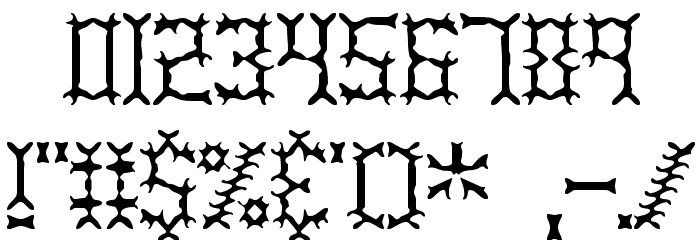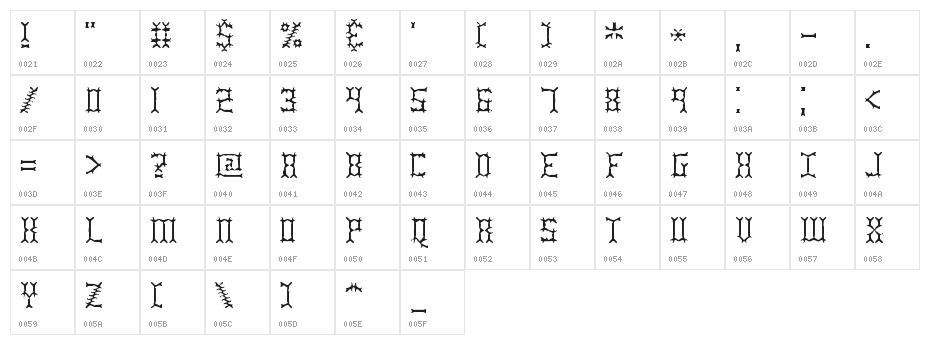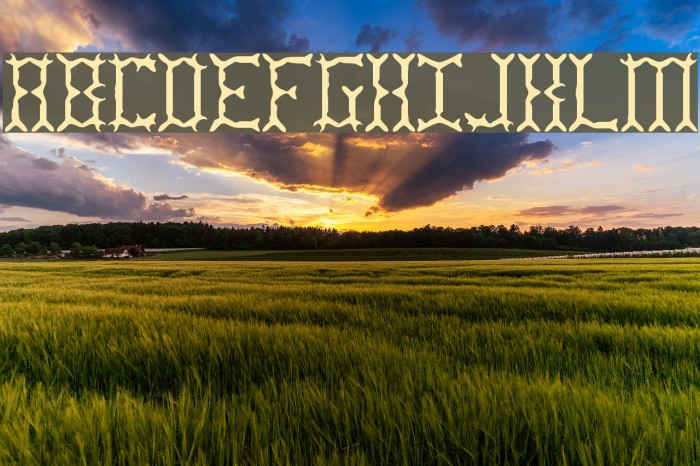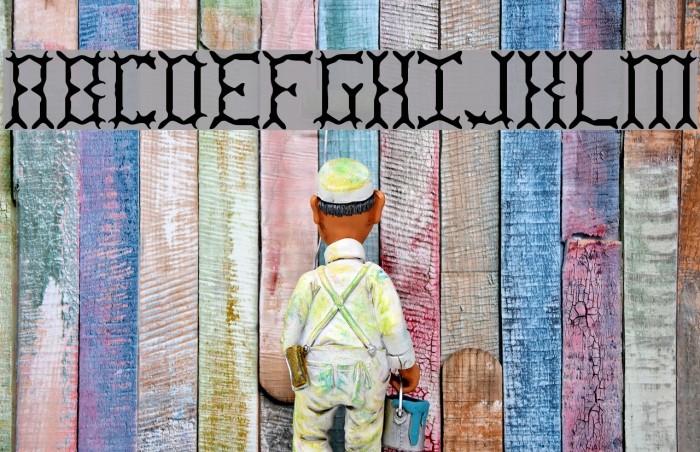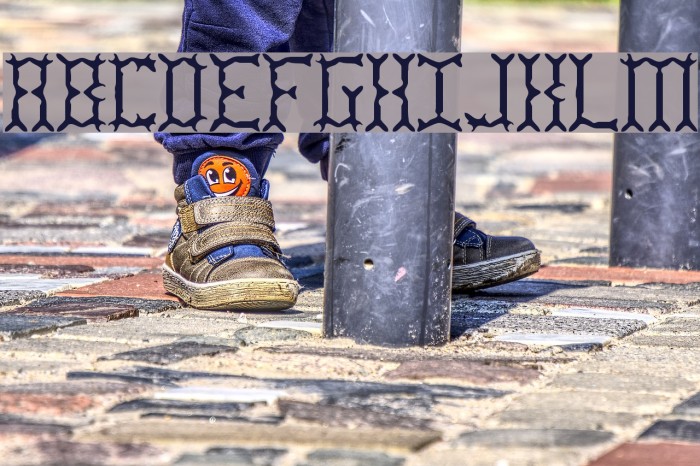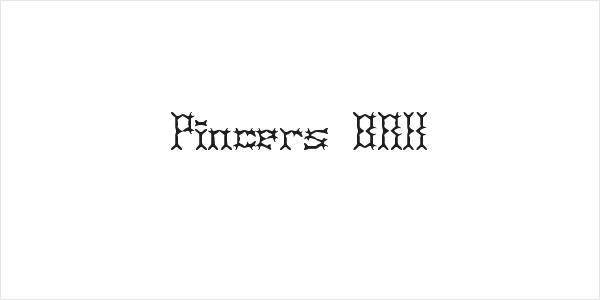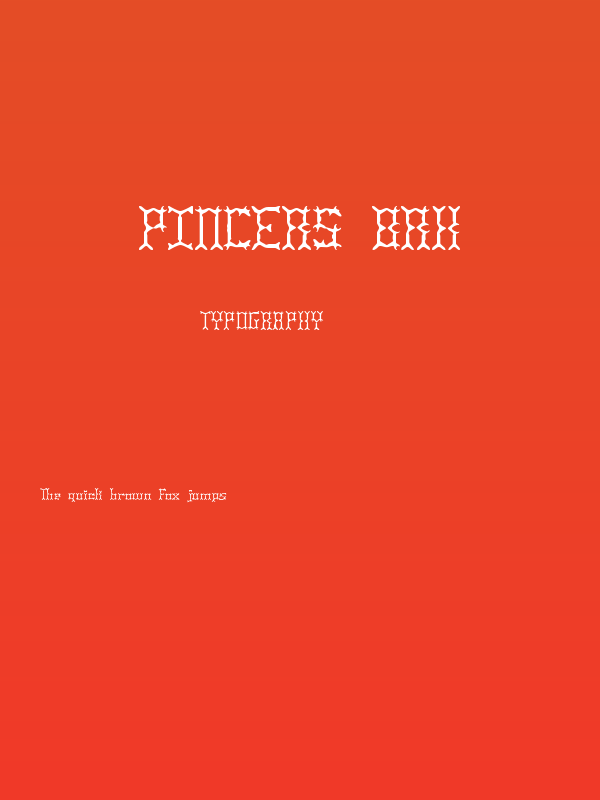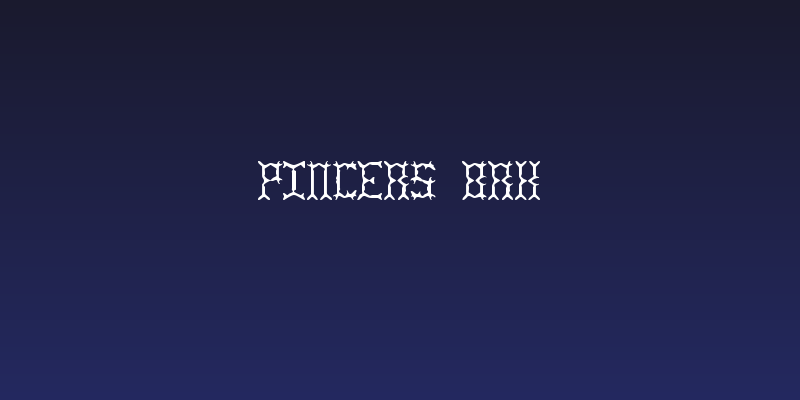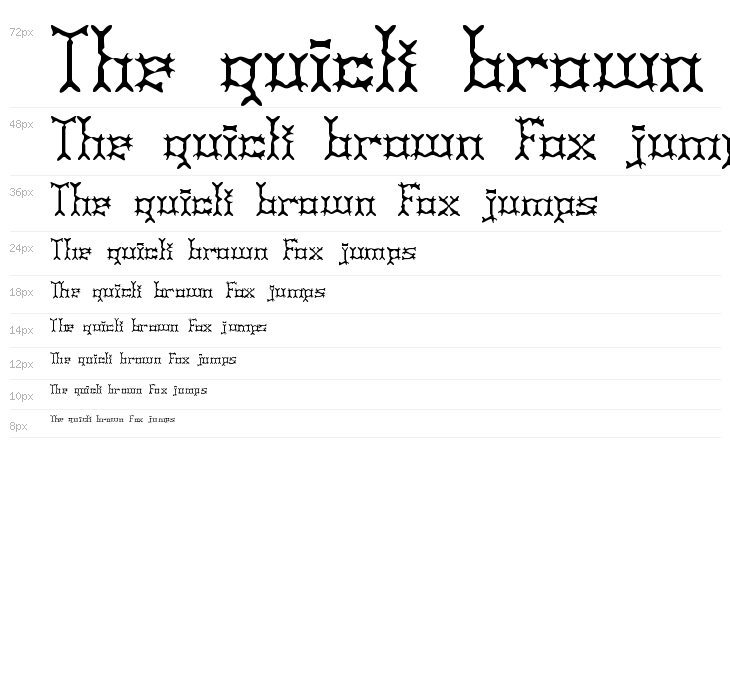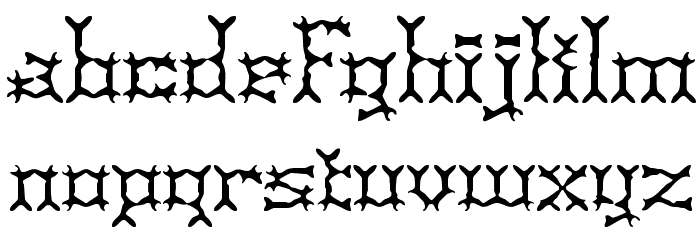
Pincers BRK Font
Pincers BRK Description
This font features a unique, thorn-like design that gives it a sharp and edgy appearance. The characters are formed with pointed, angular strokes that resemble barbed wire or thorns, creating a visually striking and aggressive aesthetic. The uppercase and lowercase letters maintain a consistent style, with each character exhibiting a bold and jagged outline. Numbers and special characters follow the same design principles, ensuring uniformity across the entire character set. The font's distinctive style makes it ideal for projects that require a bold and unconventional look.
| Use Case | Logos, Posters, Album Covers |
| Proposed Projects | Ideal for horror-themed designs, edgy posters, album covers, or any project requiring a bold, unconventional look. |